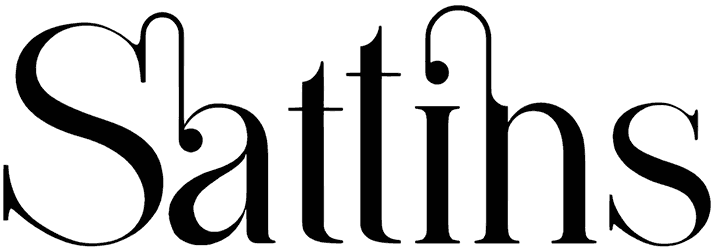
Sattins Font
Here we are again to proudly introduce an authenticated fashion magazine font, the same as Sattins, to you. This masterpiece is able to turn any kind of casual artwork, including branding, stationery, flyers, presentations, and blog posts, into an eye-catching piece of art.